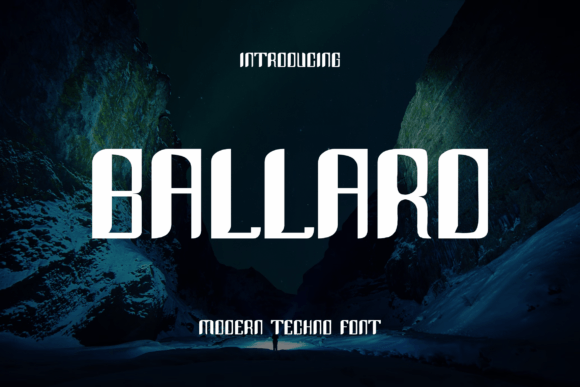
Introducing Ballard Font: The Modern Display Font for Bold Designs
Are you tired of using the same old fonts for your branding projects? Look no further! We’re excited to introduce Ballard Font, a modern display font that’s perfect for creating bold and authentic designs. In this article, we’ll explore the features and benefits of Ballard Font, and how it can elevate your branding projects to the next level.
What is Ballard Font?
Ballard Font is a bold and authentic display font that’s designed to make a statement. With its modern and sleek design, this font is perfect for creating eye-catching logos, t-shirt prints, and creative products. Whether you’re a designer, crafty entrepreneur, or simply someone who loves to create, Ballard Font is the perfect addition to your font collection.
Key Features of Ballard Font
• Bold and Authentic Design: Ballard Font features a bold and authentic design that’s perfect for creating eye-catching designs.
• Modern and Sleek: This font has a modern and sleek design that’s perfect for creating contemporary branding projects.
• Versatile: Ballard Font is versatile and can be used in a variety of contexts, from logos and t-shirt printing to creative products and more.
• Easily Readable: Despite its bold design, Ballard Font is easily readable, making it perfect for use in a variety of applications.
Benefits of Using Ballard Font
So, why should you choose Ballard Font for your branding projects? Here are just a few benefits of using this amazing font:
• Stand Out from the Crowd: With Ballard Font, you can create designs that stand out from the crowd and grab attention.
• Professional Look and Feel: This font gives your designs a professional look and feel that’s perfect for branding projects.
• Easily Customizable: Ballard Font is easily customizable, allowing you to adjust the font to suit your design needs.
• Time-Saving: With Ballard Font, you can create professional-looking designs in no time, saving you time and effort.
How to Use Ballard Font
Using Ballard Font is easy! Here are a few ways you can use this amazing font:
• Logos: Use Ballard Font to create eye-catching logos that make a statement.
• T-Shirt Printing: Create bold and authentic t-shirt prints with Ballard Font.
• Creative Products: Use Ballard Font to create unique and eye-catching creative products, such as mugs, posters, and more.
• Branding Projects: Use Ballard Font to create professional-looking branding projects, such as brochures, flyers, and more.
In conclusion, Ballard Font is a modern display font that’s perfect for creating bold and authentic designs. With its sleek and modern design, this font is versatile and can be used in a variety of contexts. Whether you’re a designer, crafty entrepreneur, or simply someone who loves to create, Ballard Font is the perfect addition to your font collection. So why wait? Download Ballard Font today and start creating amazing designs that stand out from the crowd!
• Is Ballard Font easy to read? Yes, despite its bold design, Ballard Font is easily readable, making it perfect for use in a variety of applications.